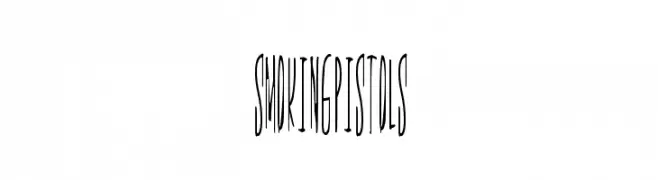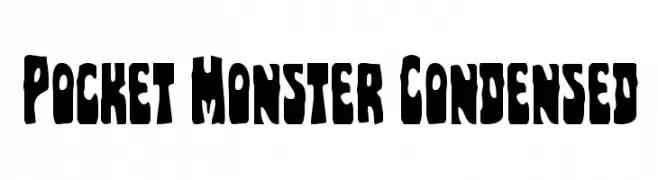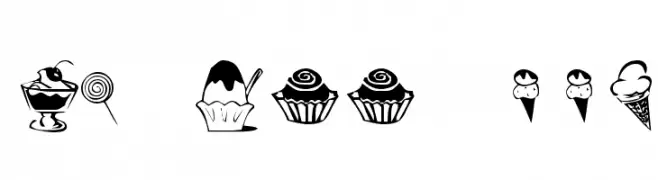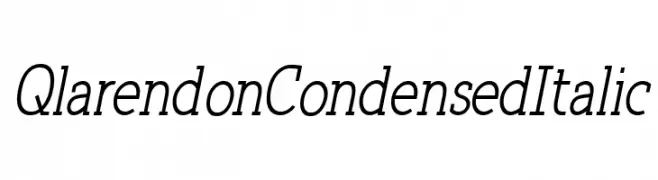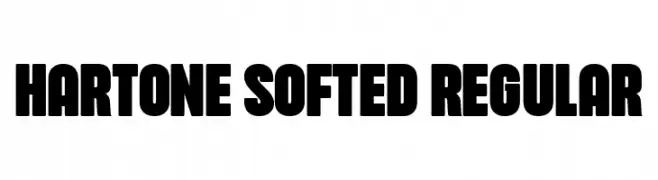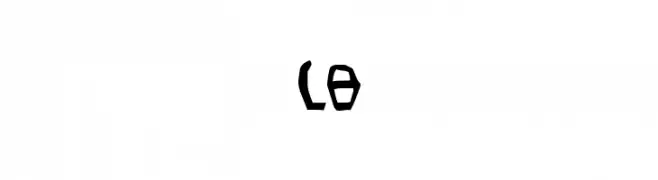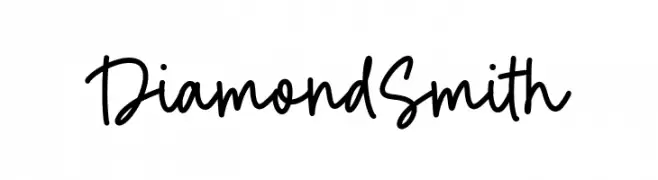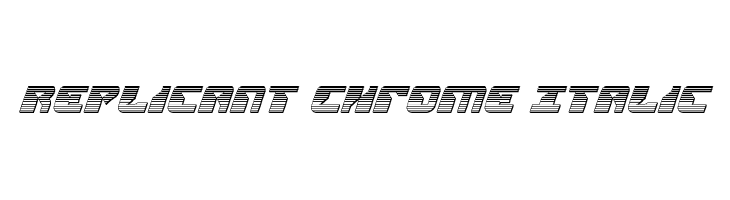
A tall, narrow, and artistic font with a hand-drawn feel.
A decorative font with characters inside turtle silhouettes, offering a playful and thematic design.
A dynamic, angular font with a runic, italicized style.
A bold, playful, and condensed font with a whimsical style.
A decorative script font with scalloped frames around each character.
A whimsical decorative font featuring sweet treat illustrations.
A condensed, italic serif font with elegant, elongated strokes.
A bold, modern font with thick strokes and tight spacing, perfect for impactful headlines.
A bold, geometric font with sharp, angular edges and a modern style.
Casual handwritten script font.